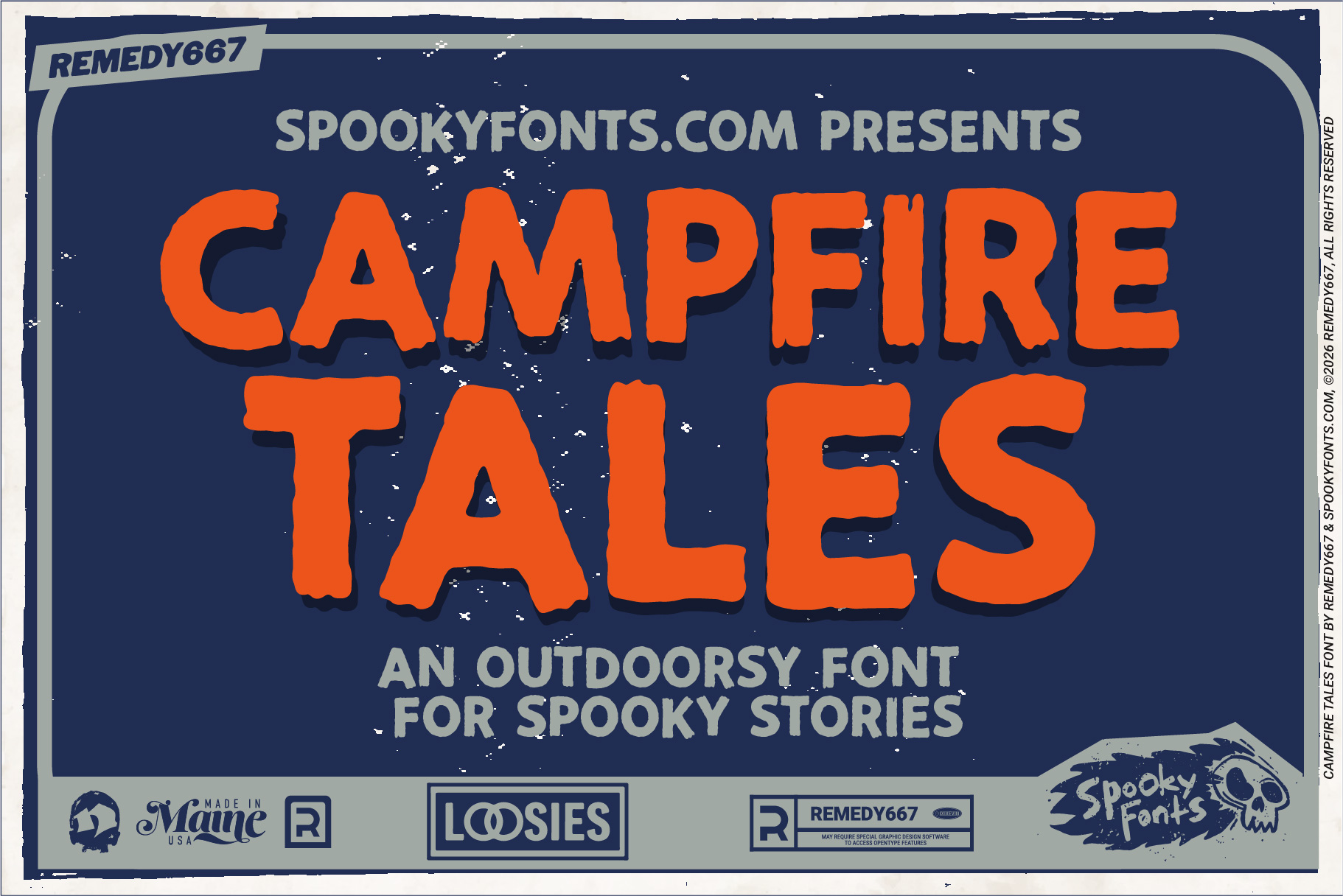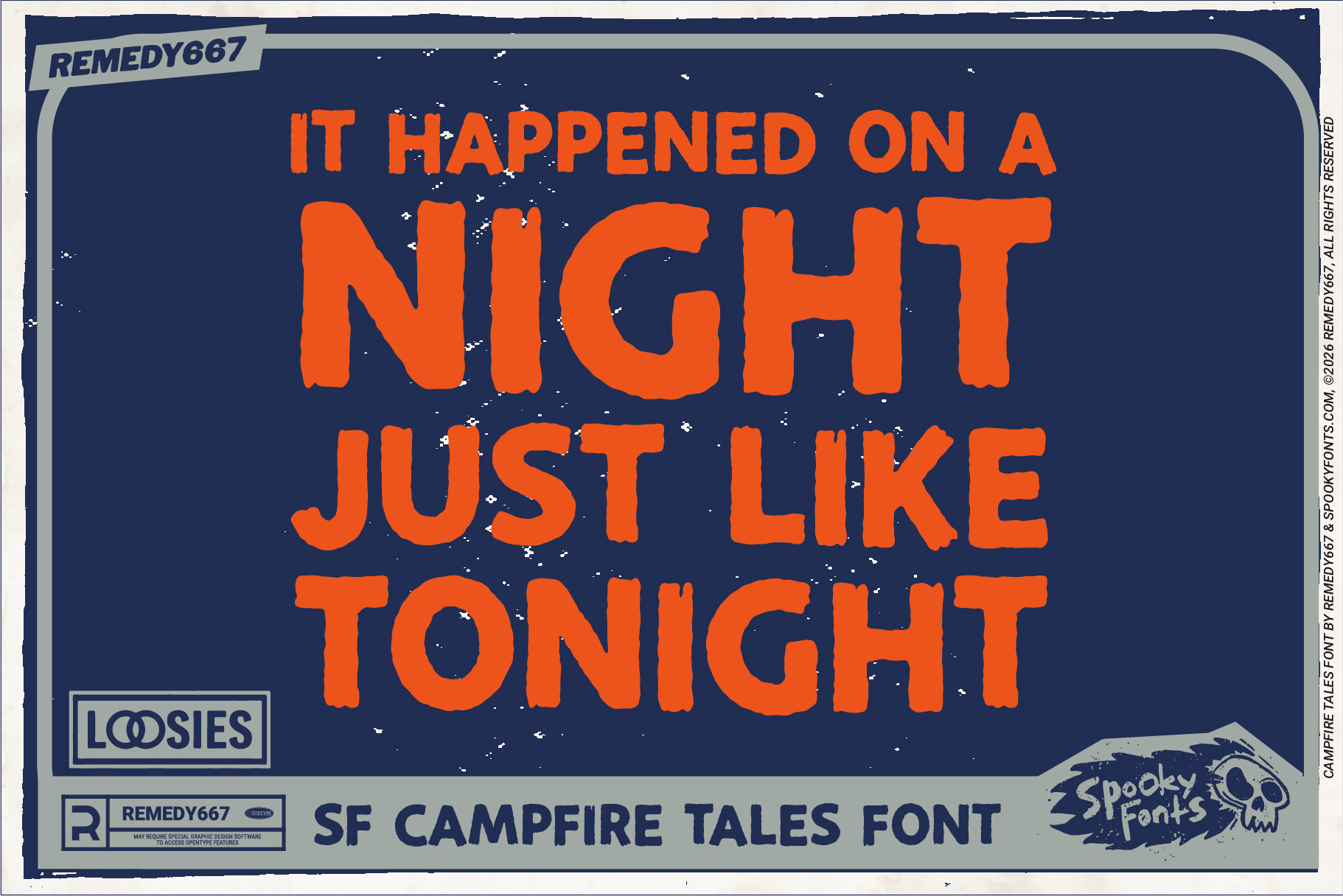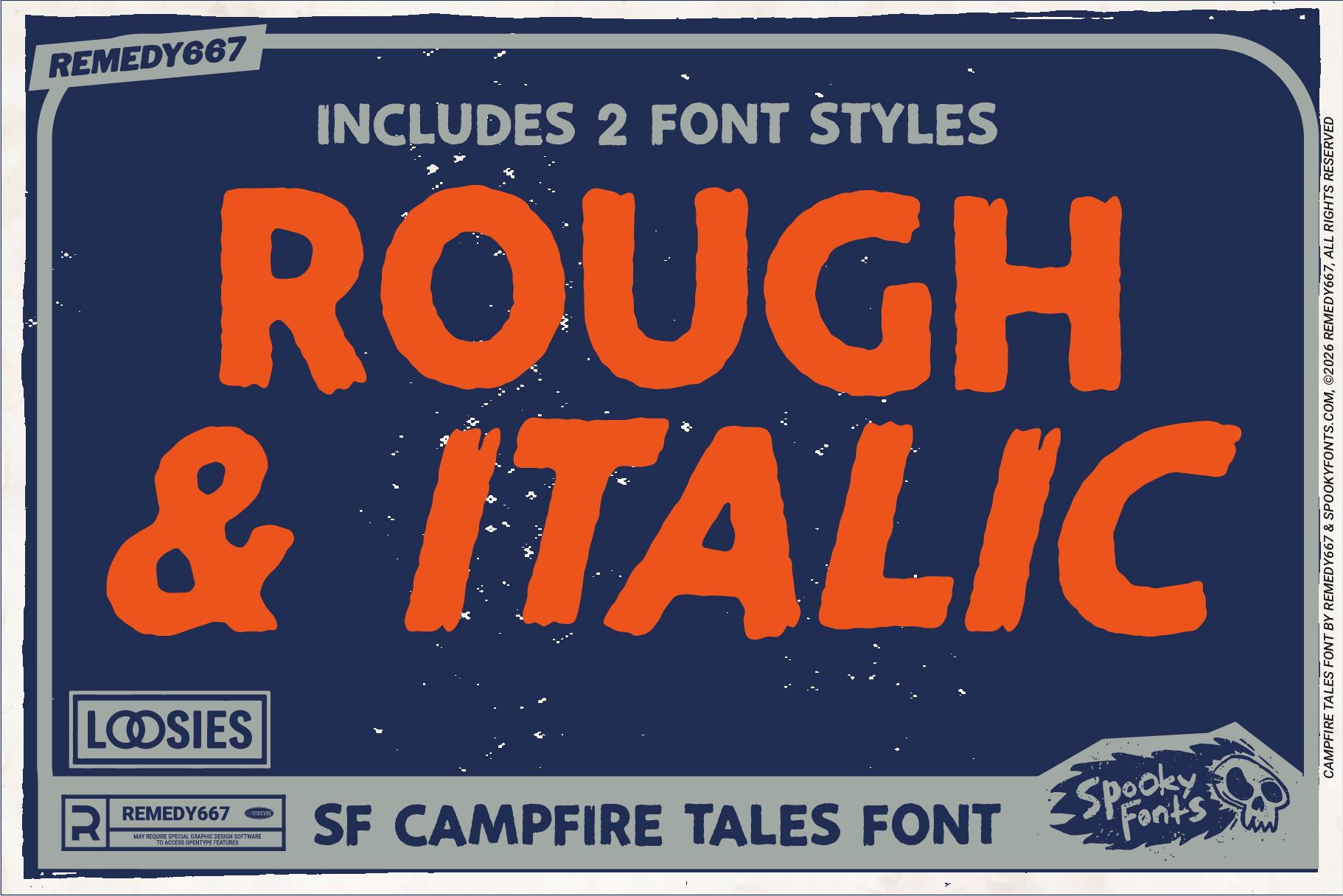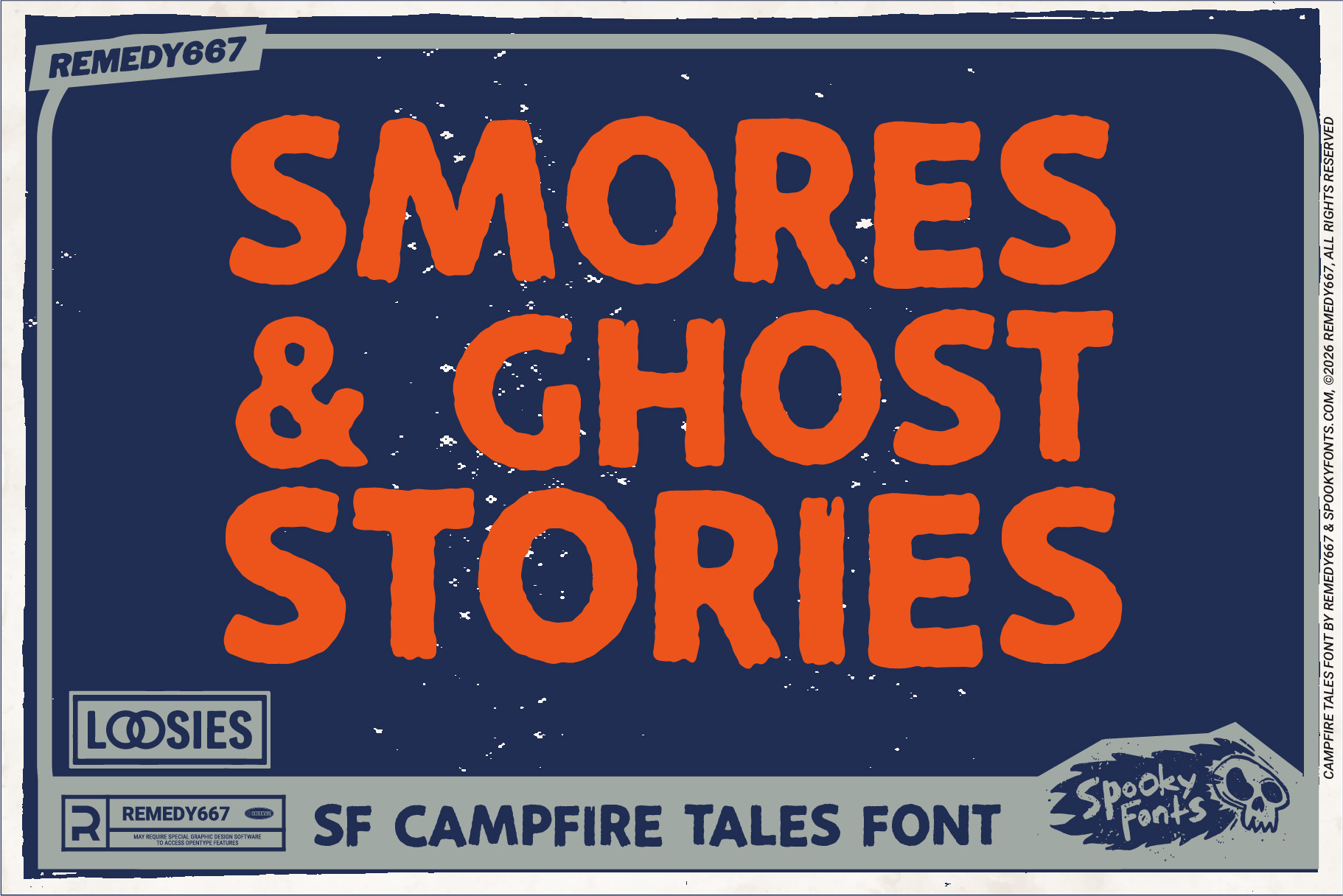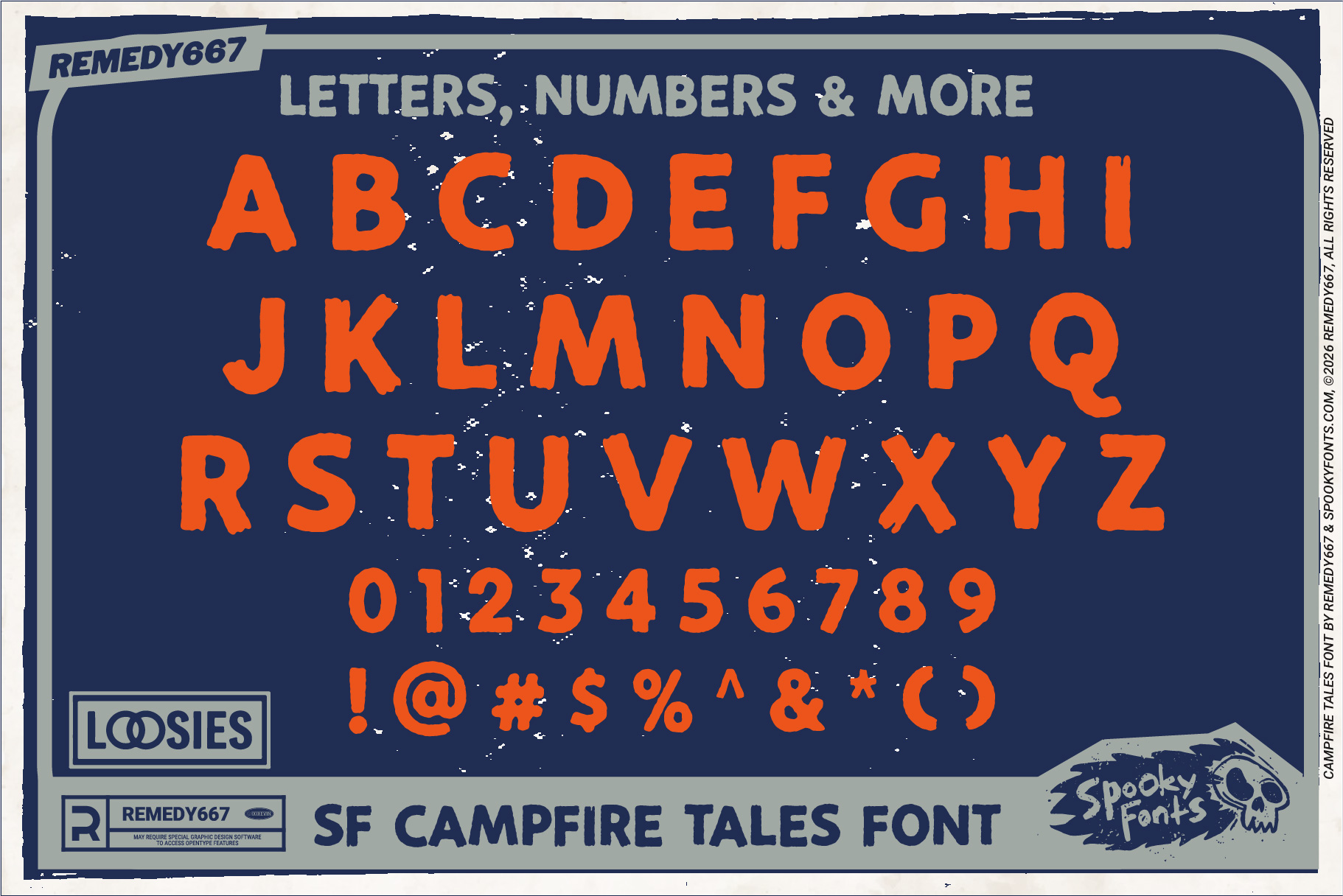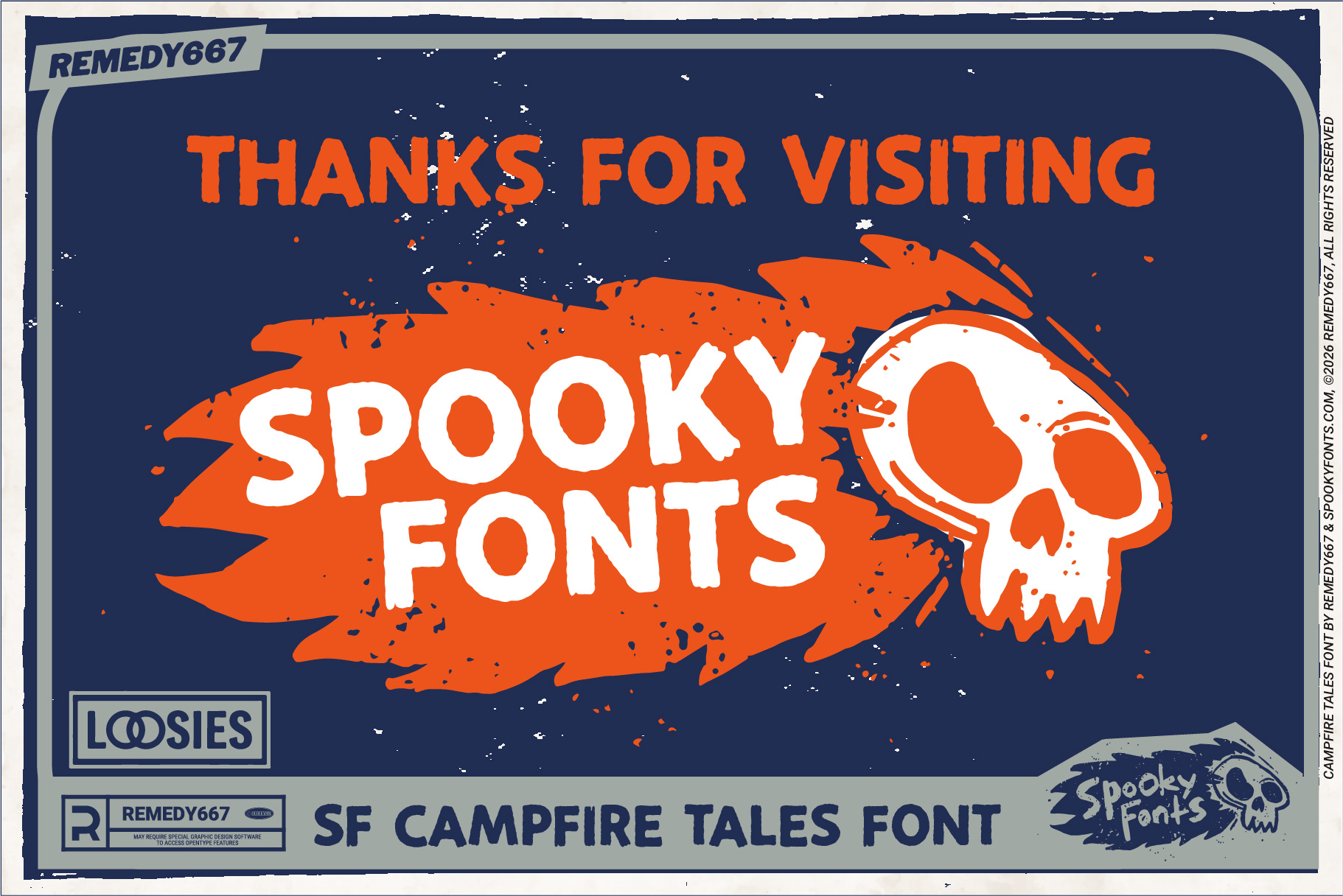
Unleash the nostalgic charm of the great outdoors with Campfire Tales, a font meticulously crafted to capture the essence of classic lettering from vintage camping books. Its thick brush stroke style brings warmth and authenticity to your designs, making it perfect for subheadings that demand attention and evoke a timeless, adventurous spirit. Whether you’re creating posters, invitations, or branding materials, Campfire Tales infuses your work with an irresistible vintage outdoorsy vibe that resonates deeply.
- Inspired by classic lettering from old camping books
- Bold, thick brush stroke aesthetic for strong visual impact
- Ideal for subheadings and standout text elements
- Perfectly captures a vintage outdoorsy atmosphere
- Highly legible yet artistically expressive